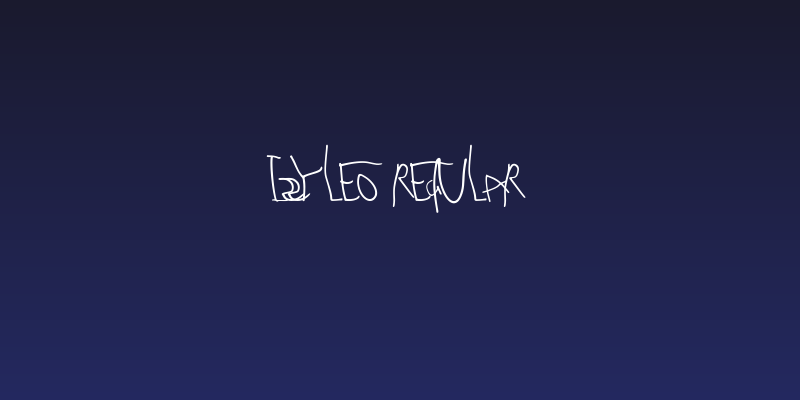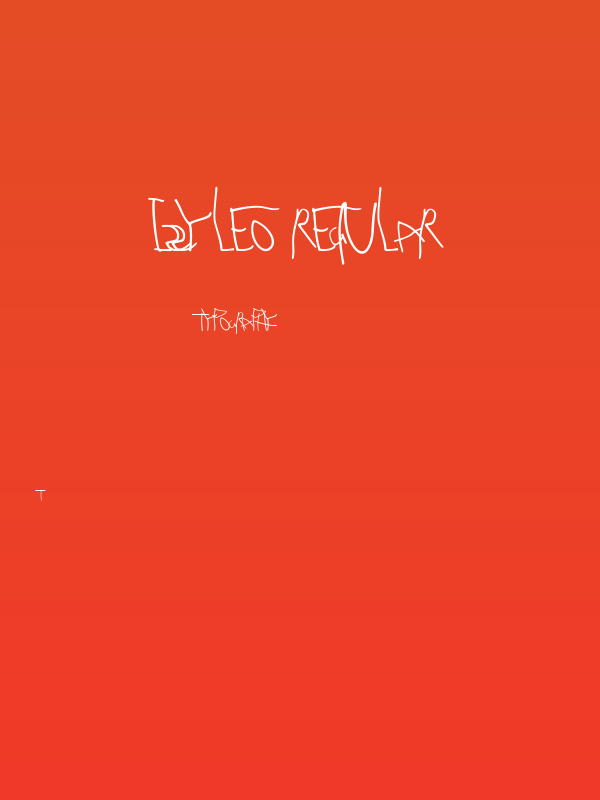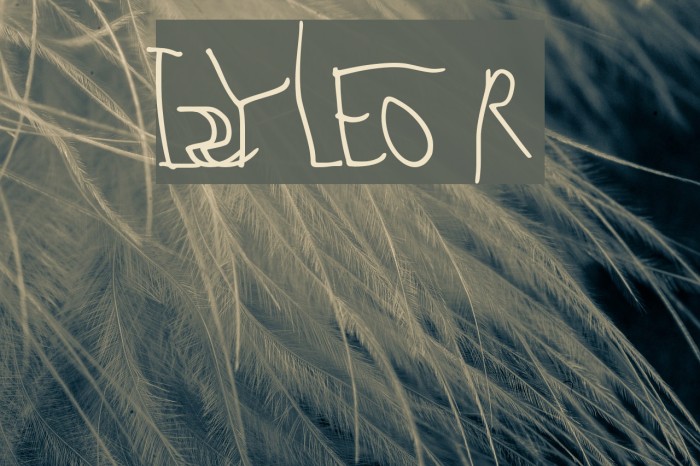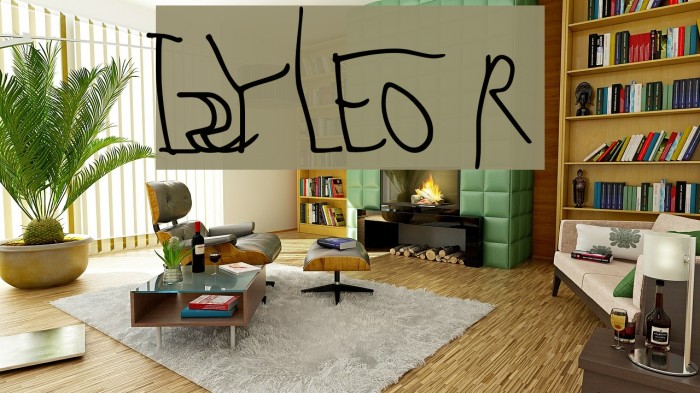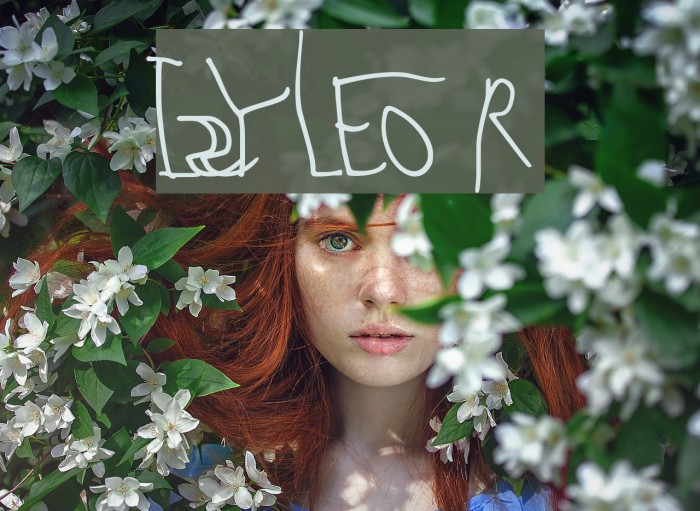
IZZY LEO Regular Font
This font features a highly expressive and dynamic handwritten style, characterized by its irregular and playful letterforms. The strokes are bold and fluid, giving it a sense of movement and spontaneity. Each character has a unique flair, with varying angles and curves that create an energetic and informal appearance. The overall design is reminiscent of graffiti or street art, making it ideal for projects that require a bold and unconventional aesthetic. The font's distinctive style makes it stand out, offering a creative and artistic touch to any design.
| Proposed Projects | Ideal for street art designs, creative posters, album covers, and urban-themed branding. |